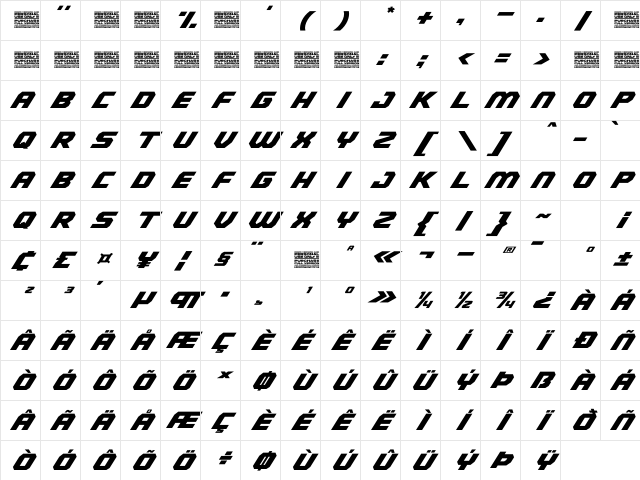
Racing Energy Regular
Foundry: Multype Studio
Designer: Mulia Yanto
Design Context for Racing Energy
Racing Energy is a composed and adaptable typeface that performs quietly and consistently across a wide range of design contexts.